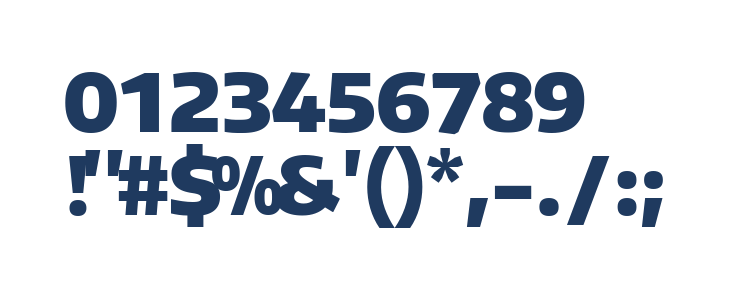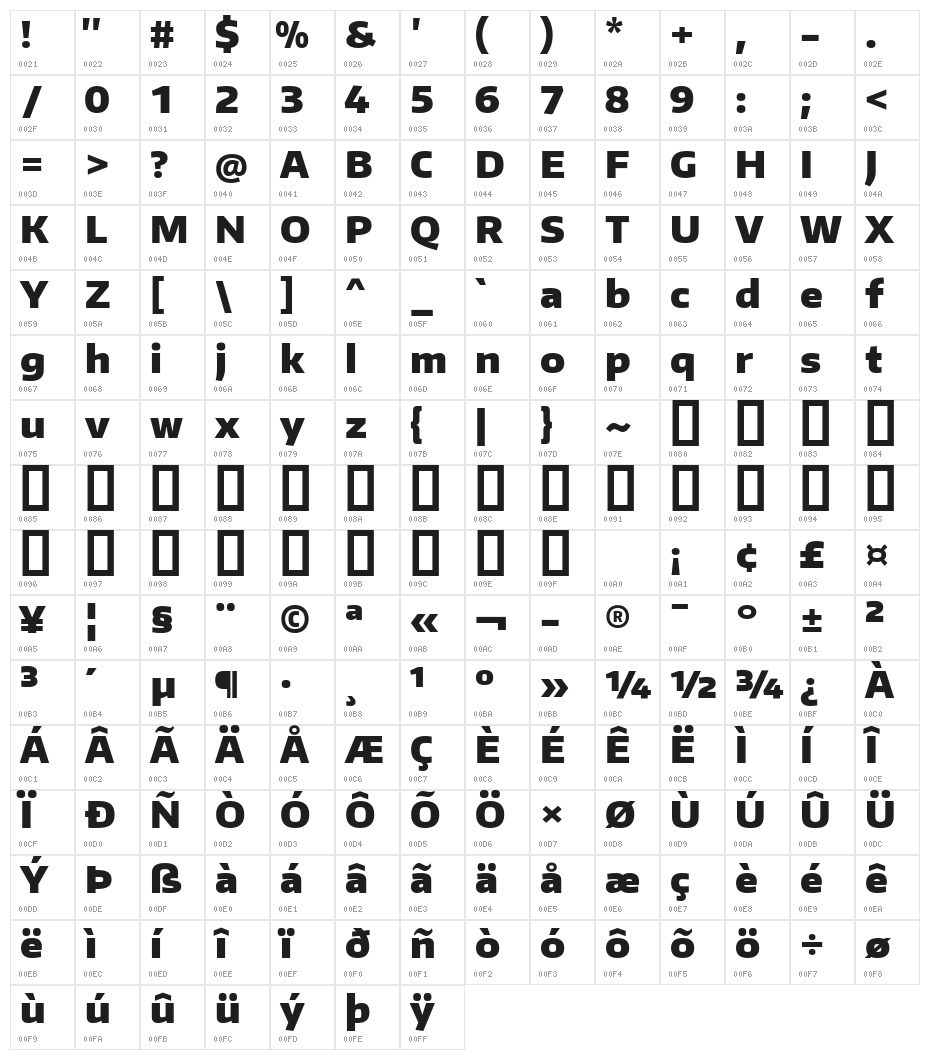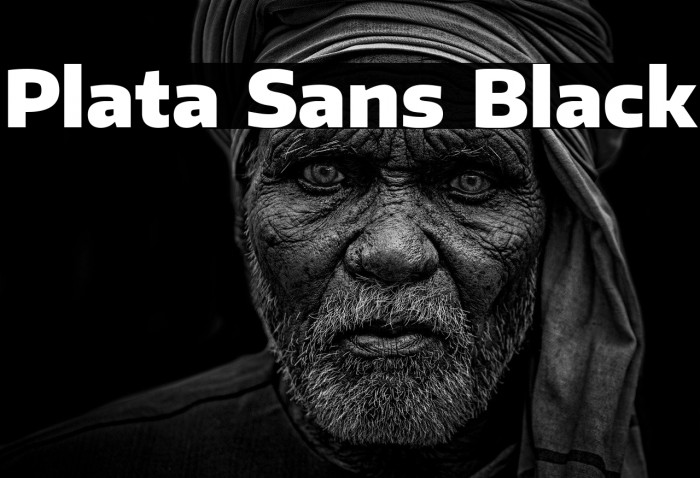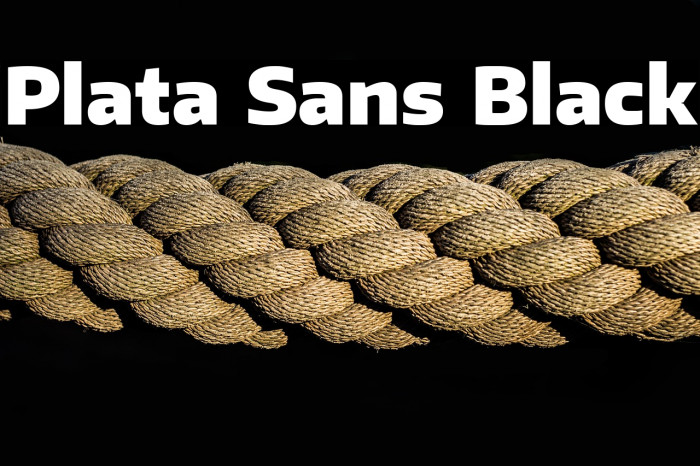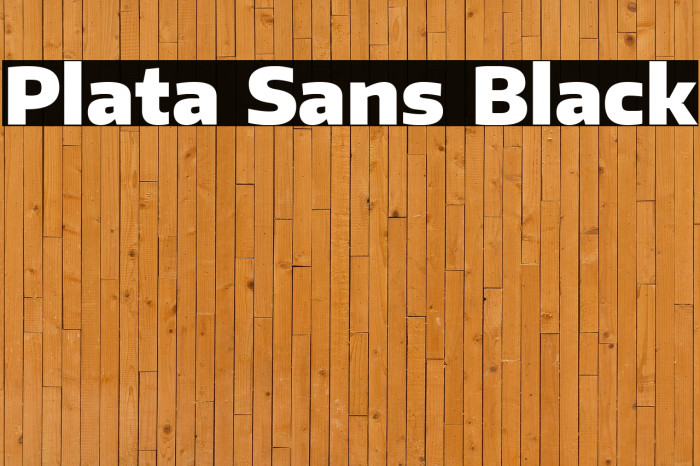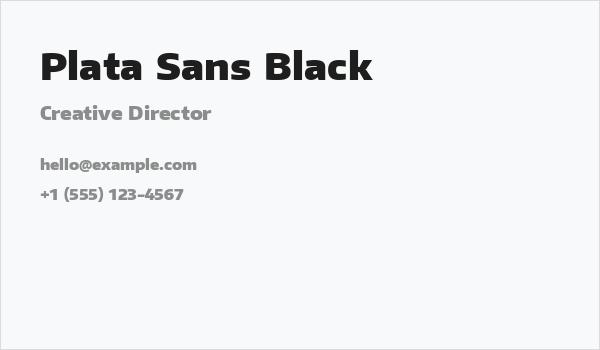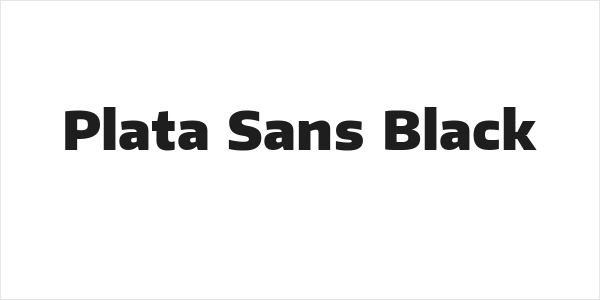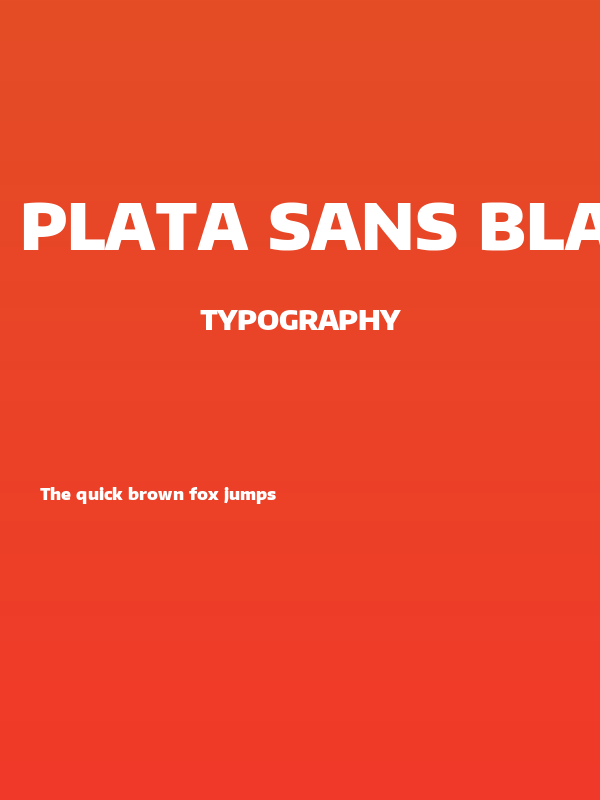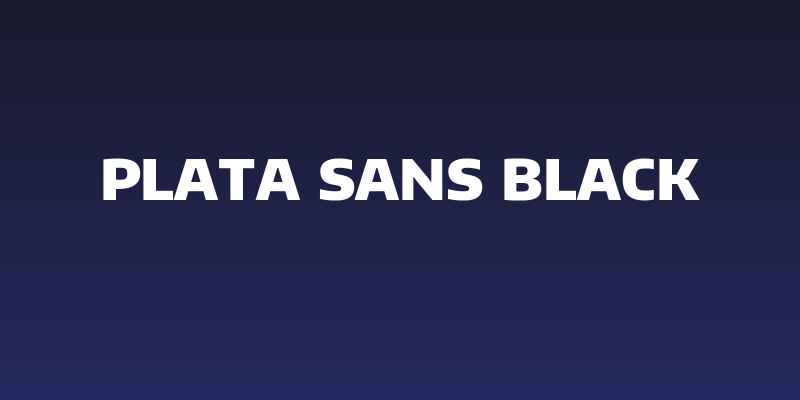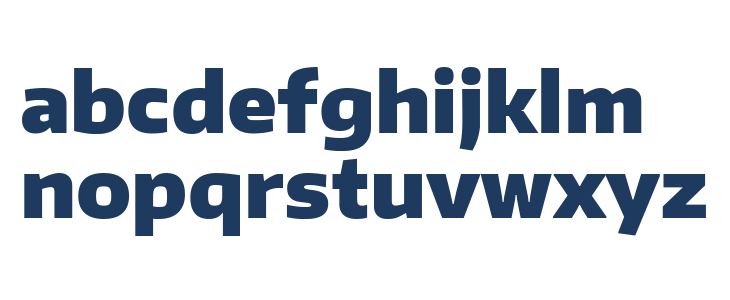
Plata Sans Black Font
Plata Sans Black Description
This font exhibits a bold and robust sans-serif style, characterized by its thick strokes and strong presence. The uppercase letters are uniform and geometric, providing a sense of stability and modernity. The lowercase letters maintain a consistent weight, ensuring readability and balance. The numerals are clear and straightforward, matching the overall bold aesthetic. Special characters are designed with the same boldness, making them stand out effectively. This font is ideal for making a strong visual impact.
| Proposed Projects | Ideal for branding, headlines, posters, and any project requiring a strong visual impact. |